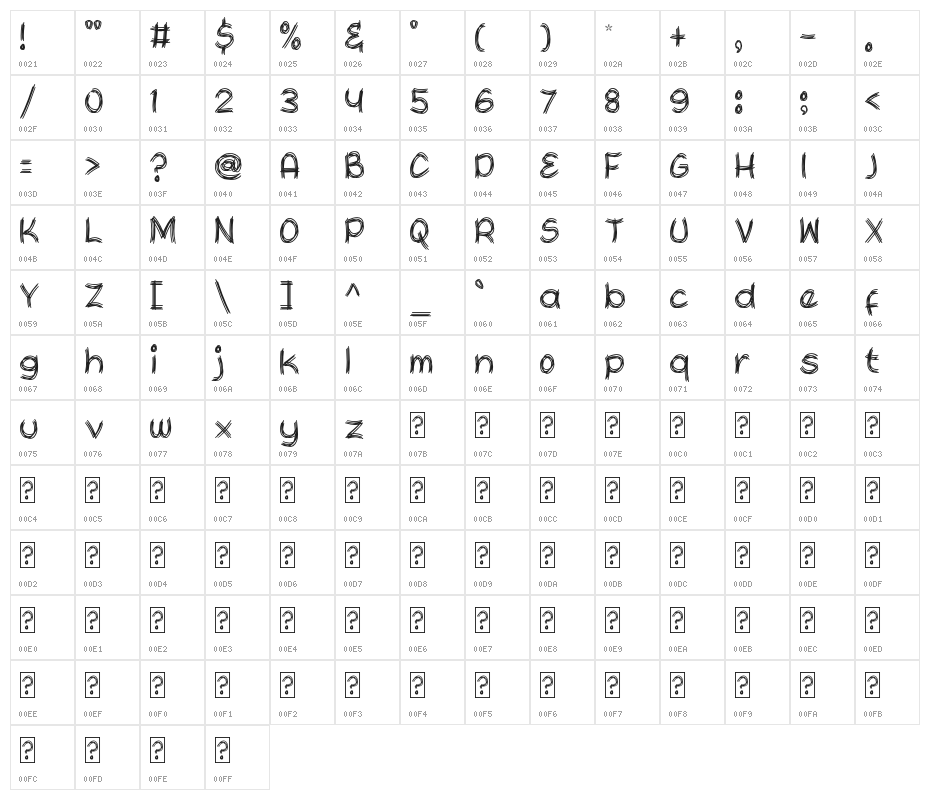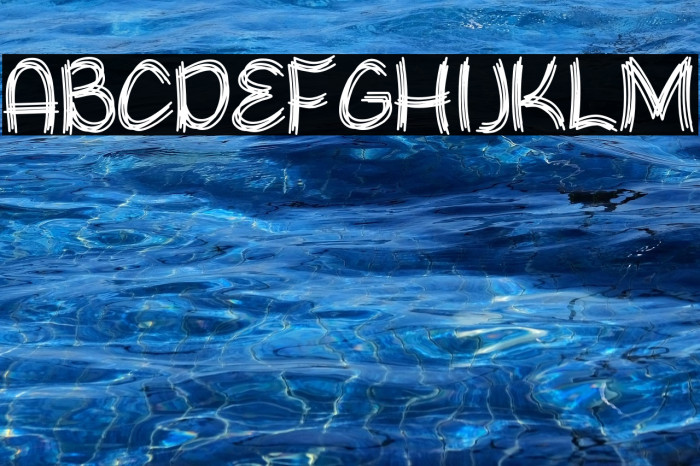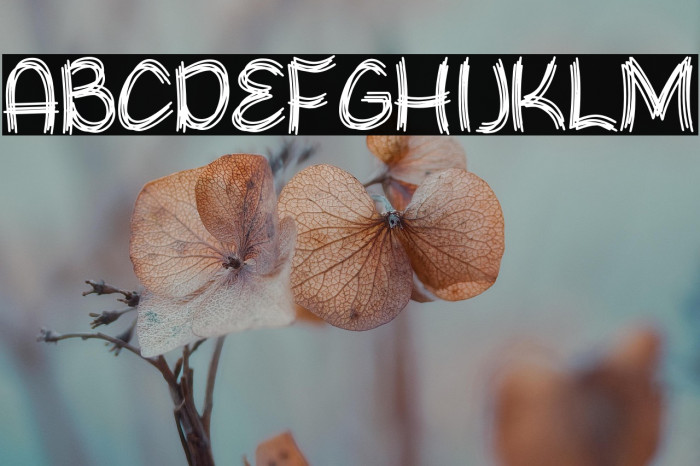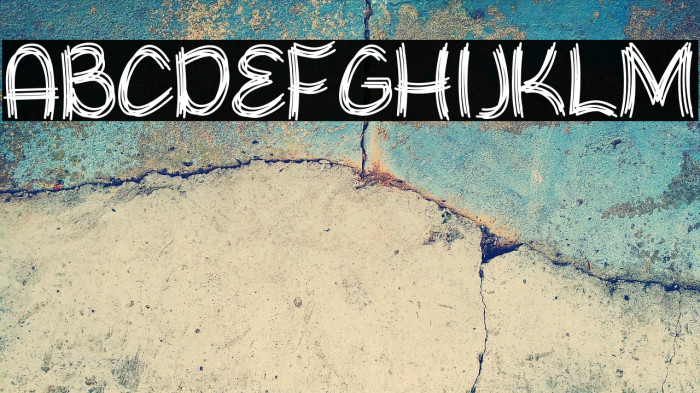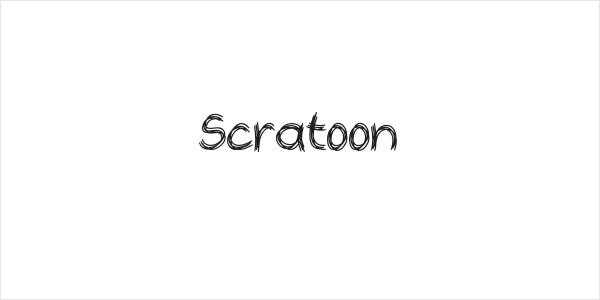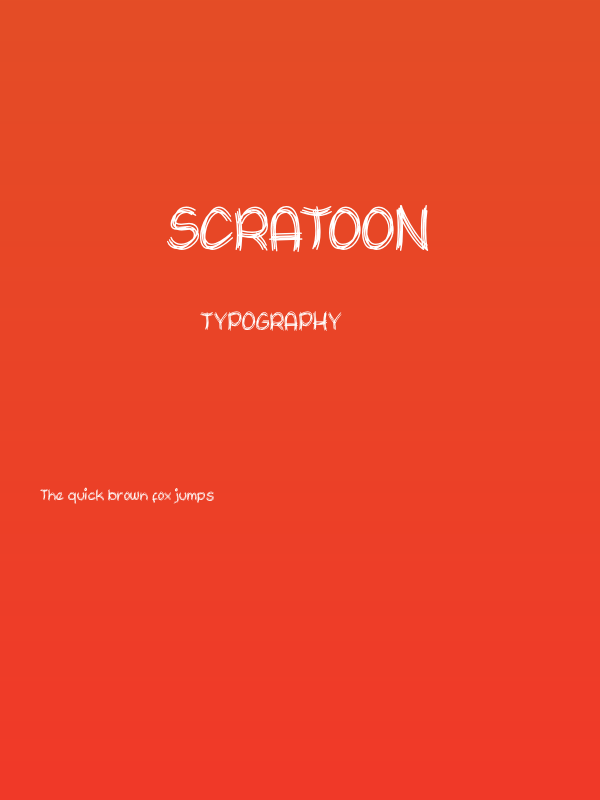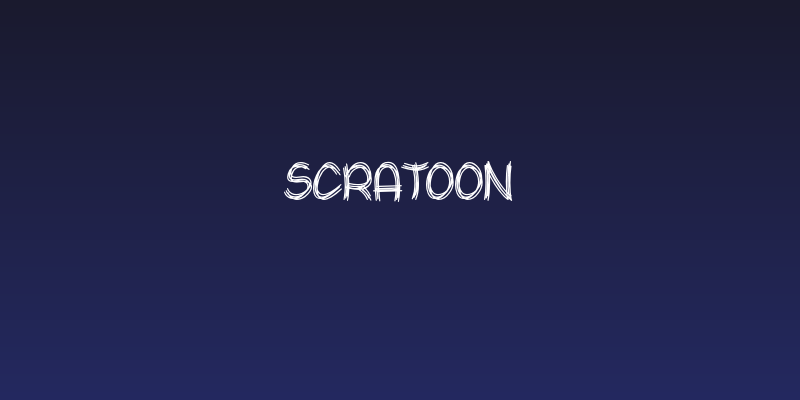
Scratoon Font
Scratoon Description
This font exhibits a playful and dynamic style, characterized by its sketch-like, hand-drawn appearance. Each character is crafted with a series of overlapping strokes, giving it an energetic and whimsical feel. The letters are bold and slightly irregular, adding to the casual and informal aesthetic. The font maintains a consistent thickness throughout, with moderate spacing between characters, ensuring readability while preserving its artistic flair. The unique design makes it suitable for creative projects that require a touch of personality and fun.
| Overall Style | Playful, Whimsical |
| Proposed Projects | Ideal for comic books, children's books, playful branding, and creative posters. |